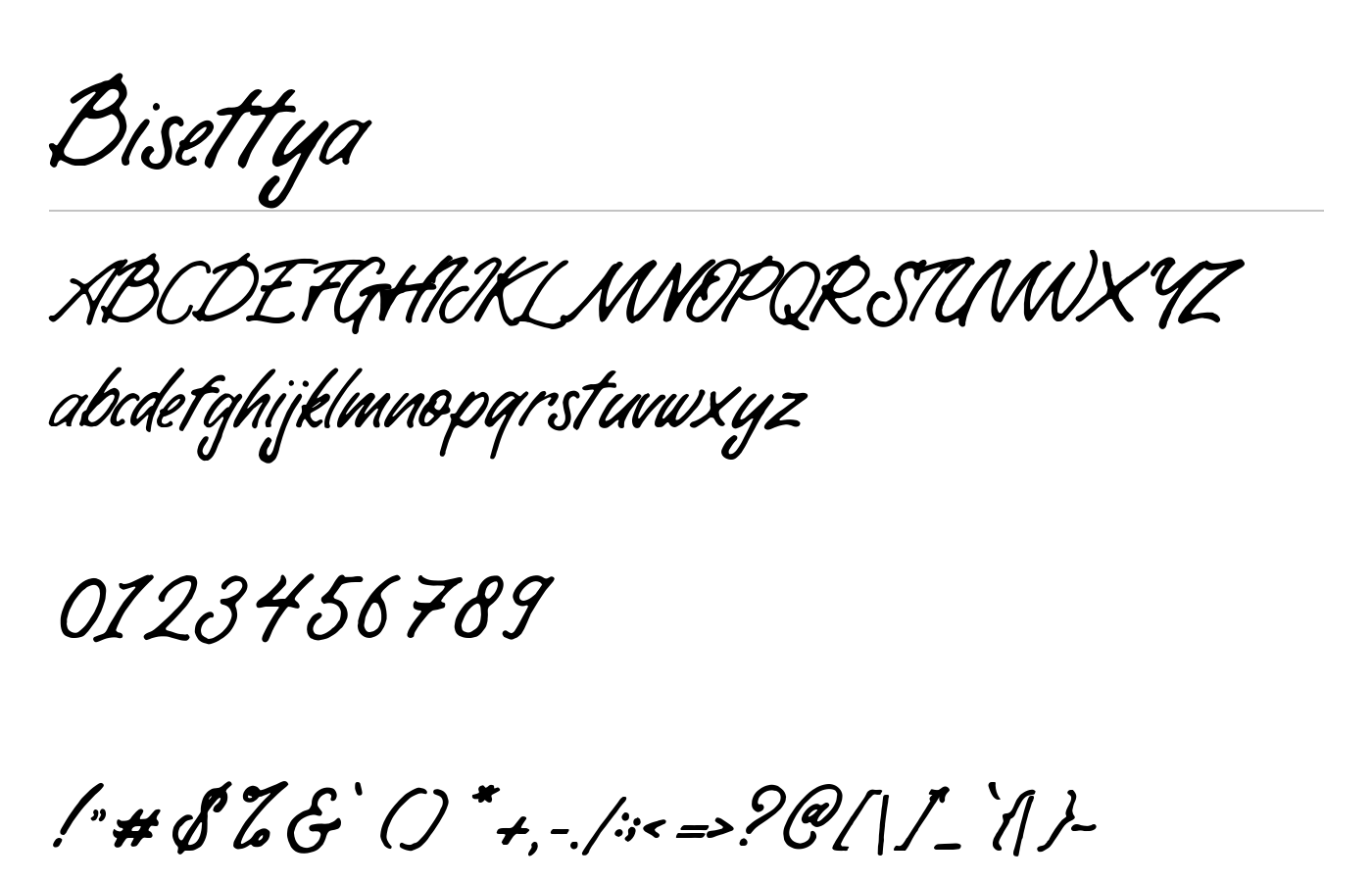
Bisettya is an elegant script font with a flowing, handwritten style that features a medium weight and a lively, dynamic stroke contrast. Its slightly condensed letterforms with smooth, curved lines give it a natural, personal feel, making it perfect for creative branding, invitations, and editorial headlines that seek a sophisticated yet approachable touch. This font works well wherever a stylish, handwritten look is desired to convey warmth and personality.
Bisettya Font